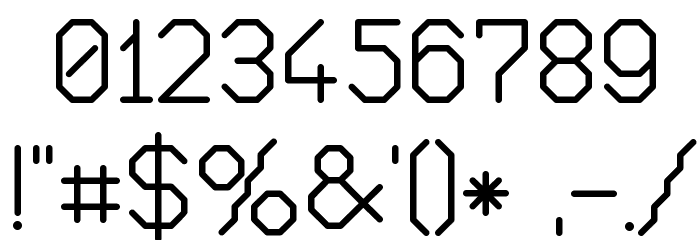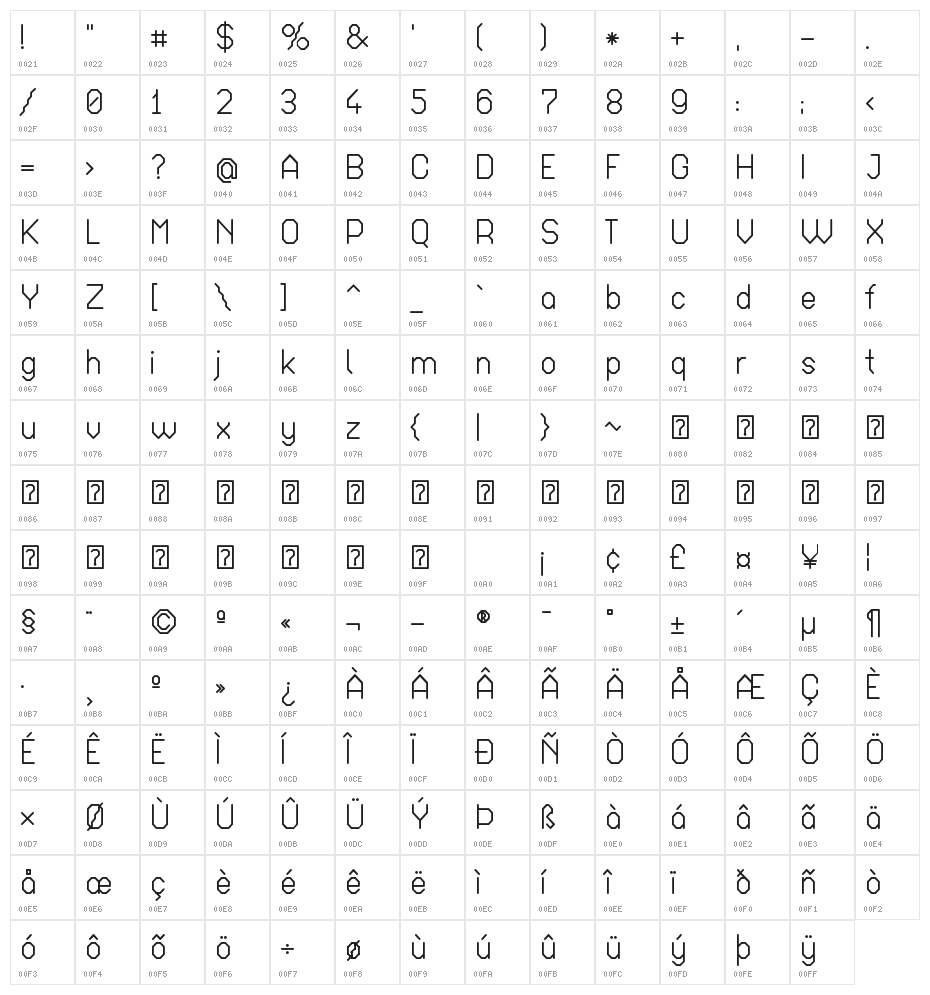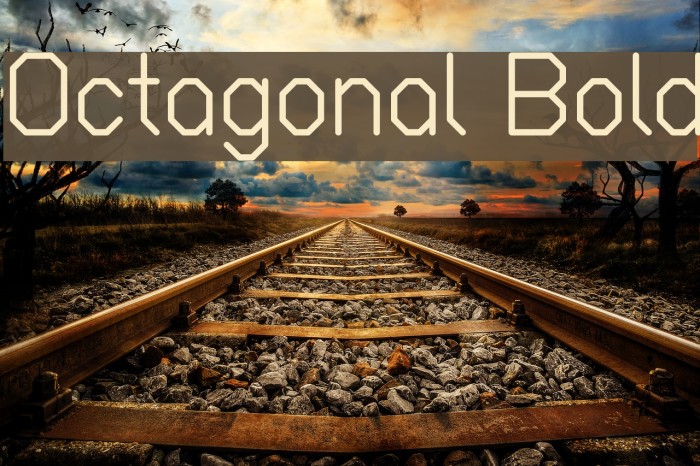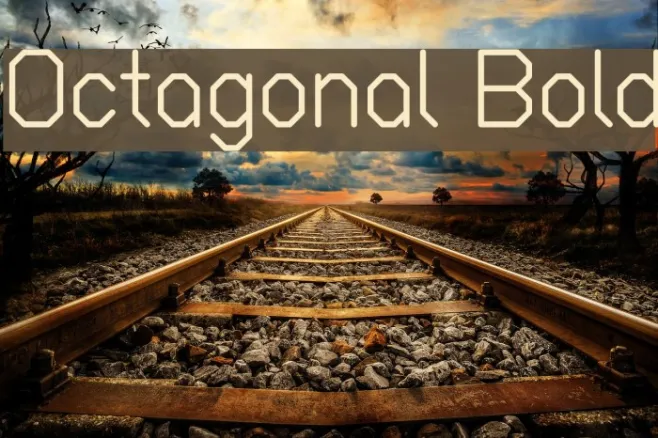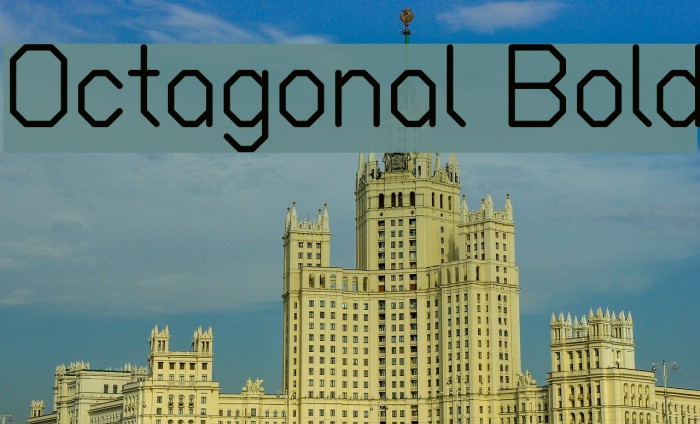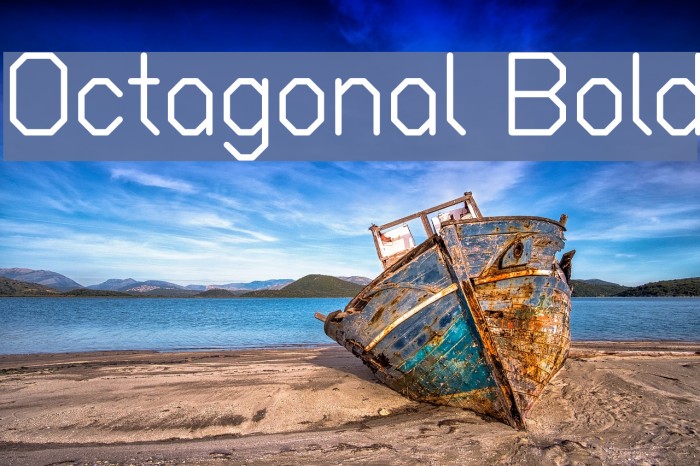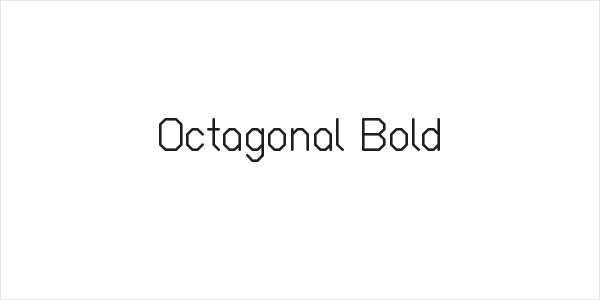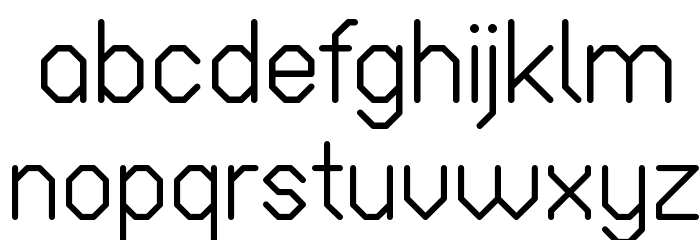
Octagonal Bold Font
Octagonal Bold Description
This font features a bold, geometric design with an octagonal structure. Each character is formed with straight lines and sharp angles, creating a modern and industrial feel. The uppercase and lowercase letters maintain a consistent style, with the lowercase being slightly more compact. Numbers and special characters follow the same angular design, ensuring uniformity across all glyphs. The font's unique style makes it stand out, offering a distinctive look that is both futuristic and retro. Its boldness ensures high visibility, making it suitable for attention-grabbing designs.
| Proposed Projects | Ideal for branding, posters, signage, and any project requiring a modern, industrial aesthetic. |